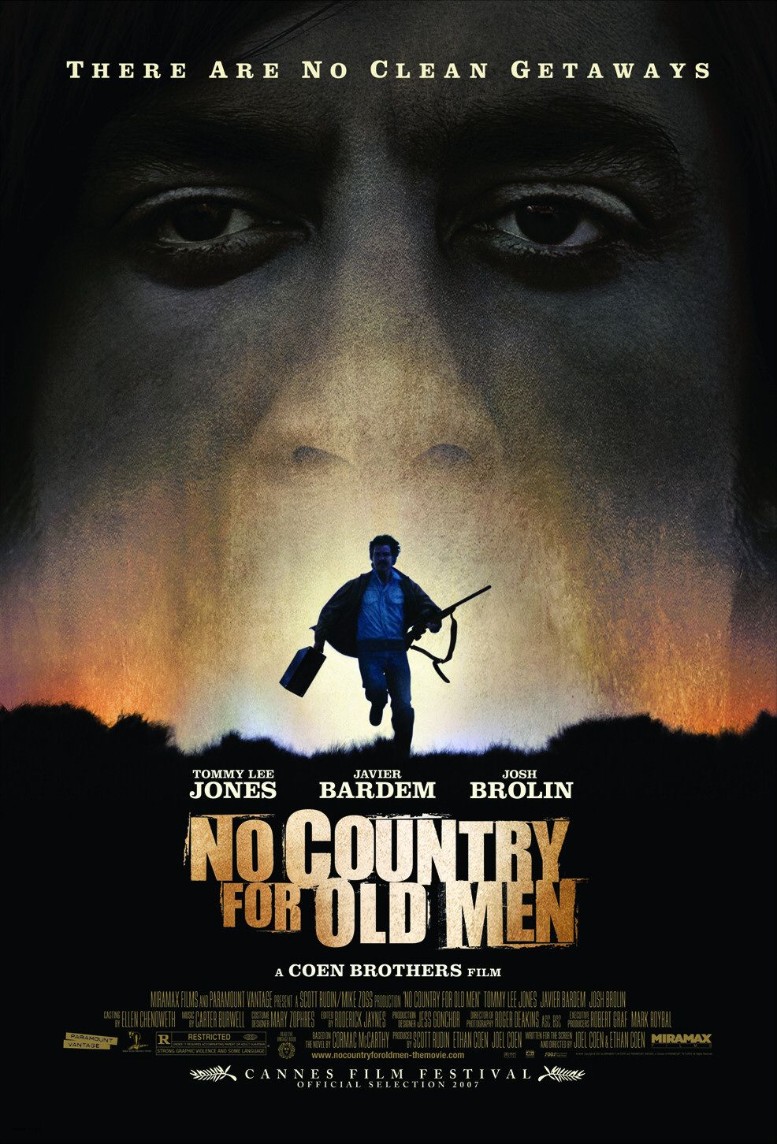
No Country for Old Men Font
Fonts in UseNo Country for Old Men is a suspenseful thriller directed by the Coen brothers, following a hunter who stumbles upon a drug deal gone wrong and becomes entangled in a cat-and-mouse chase with a relentless hitman in pursuit of stolen money.
The film title on the poster of "No Country for Old Men" features a slightly grunged sans serif font called Impact designed by Geoffrey Lee. If you're looking for a free alternative, you can consider using Ignite by OPTIFont available for free download in the Fonts Used Section.